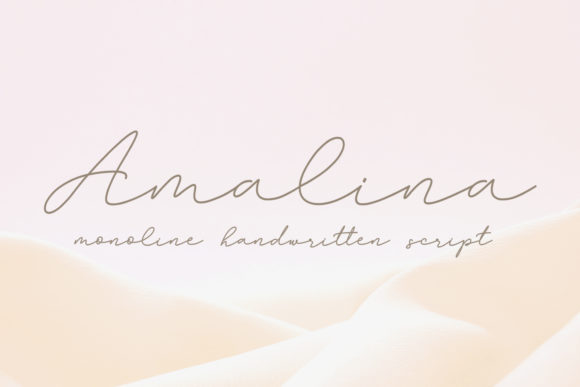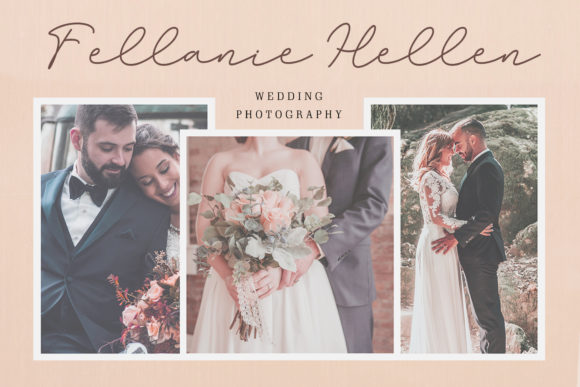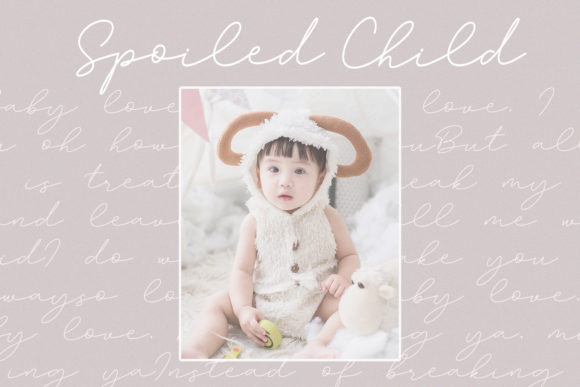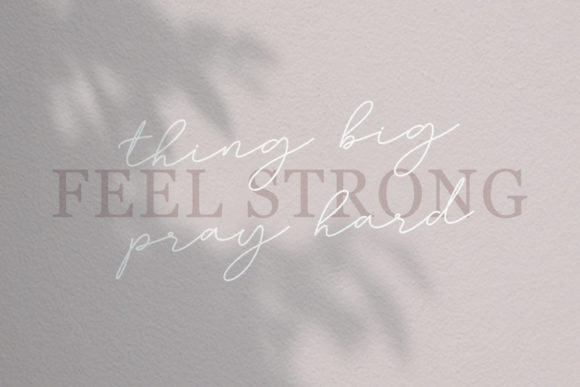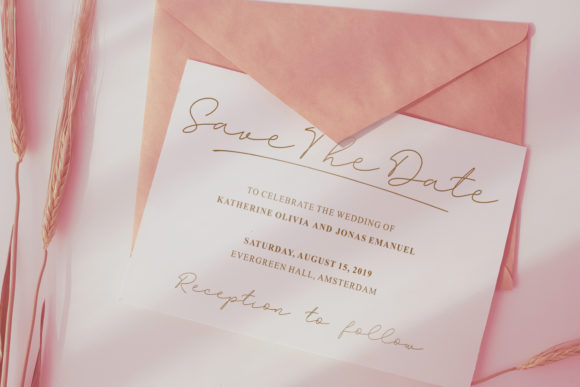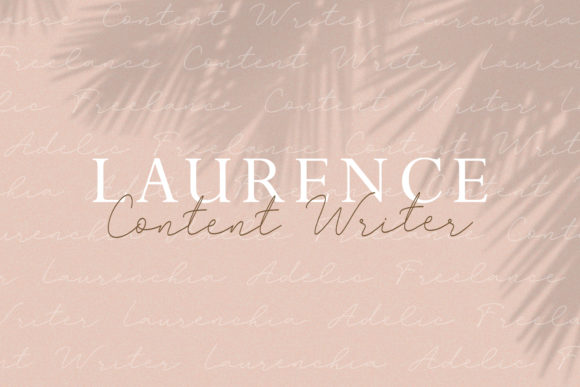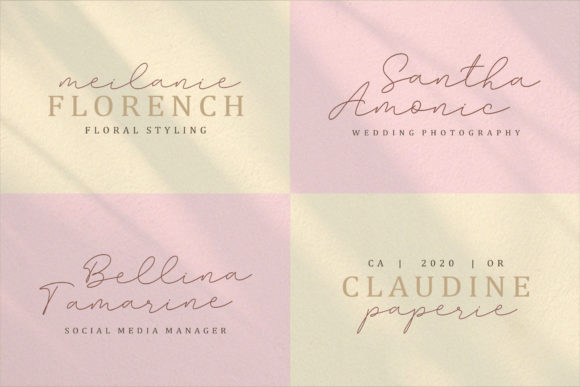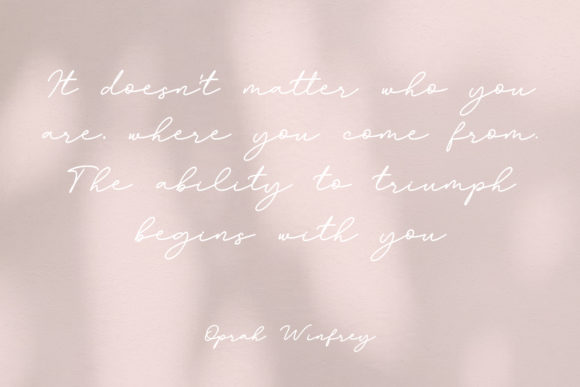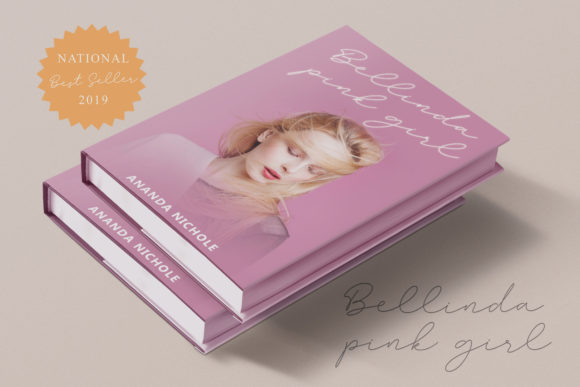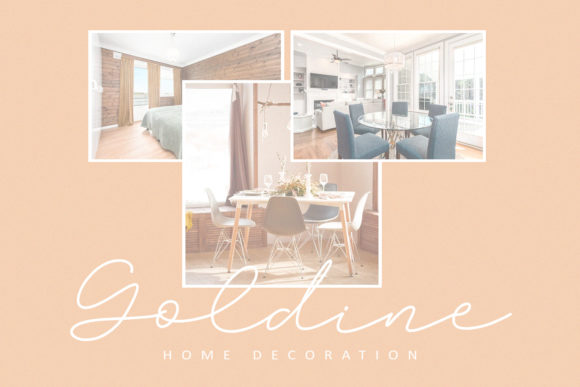
Amalina Font
About Amalina Font
Amalina is a modern and stunning script with a fresh feel. Use this magnificent script to add a beautiful spark to any crafting project.